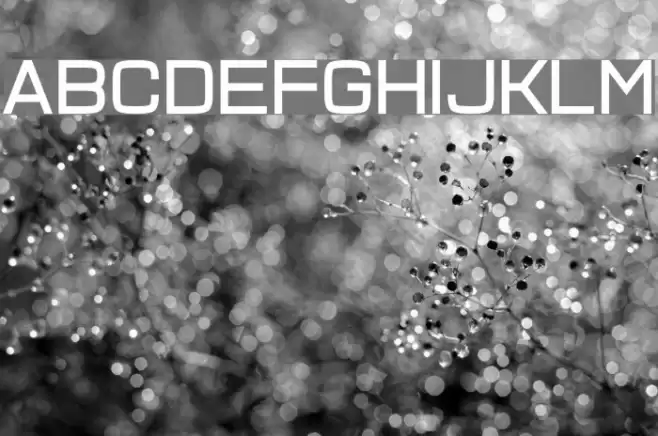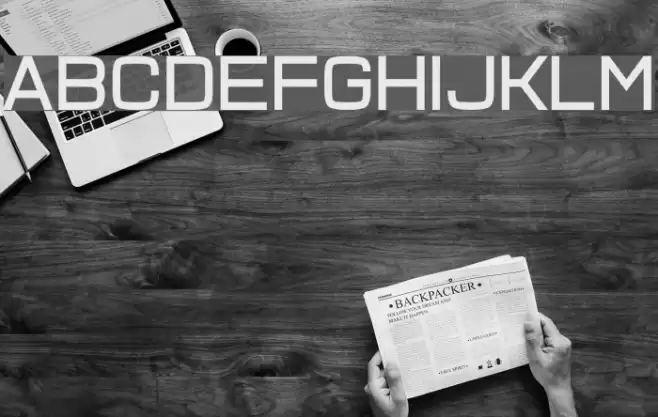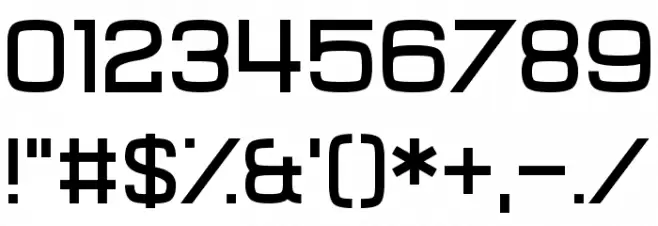
Quick Fuse Font
Quick Fuse Description
This font features a modern and sleek design with clean, straight lines and a geometric structure. The characters are uniform in width, creating a balanced and cohesive appearance. The uppercase and lowercase letters maintain a consistent style, with slightly rounded edges that soften the overall look. The numerals are clear and easy to read, making them suitable for various applications. Special characters are designed with the same attention to detail, ensuring they integrate seamlessly with the rest of the typeface. The font's simplicity and clarity make it versatile for both digital and print media.
A modern, geometric font with clean lines and uniform width from Uncategorized fonts.
- Proposed Projects: Ideal for branding, web design, and editorial layouts where clarity and modernity are key.